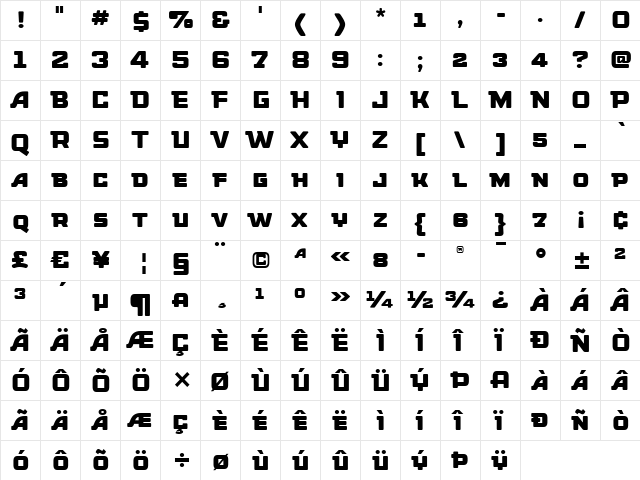
DeliDeluxeITC Medium
| Foundry | International Typeface Corporation |
Design Context for DeliDeluxeITC Typeface
DeliDeluxeITC offers clean, dependable letterforms without strong stylistic allegiance, making it a practical choice for designers who need flexibility.